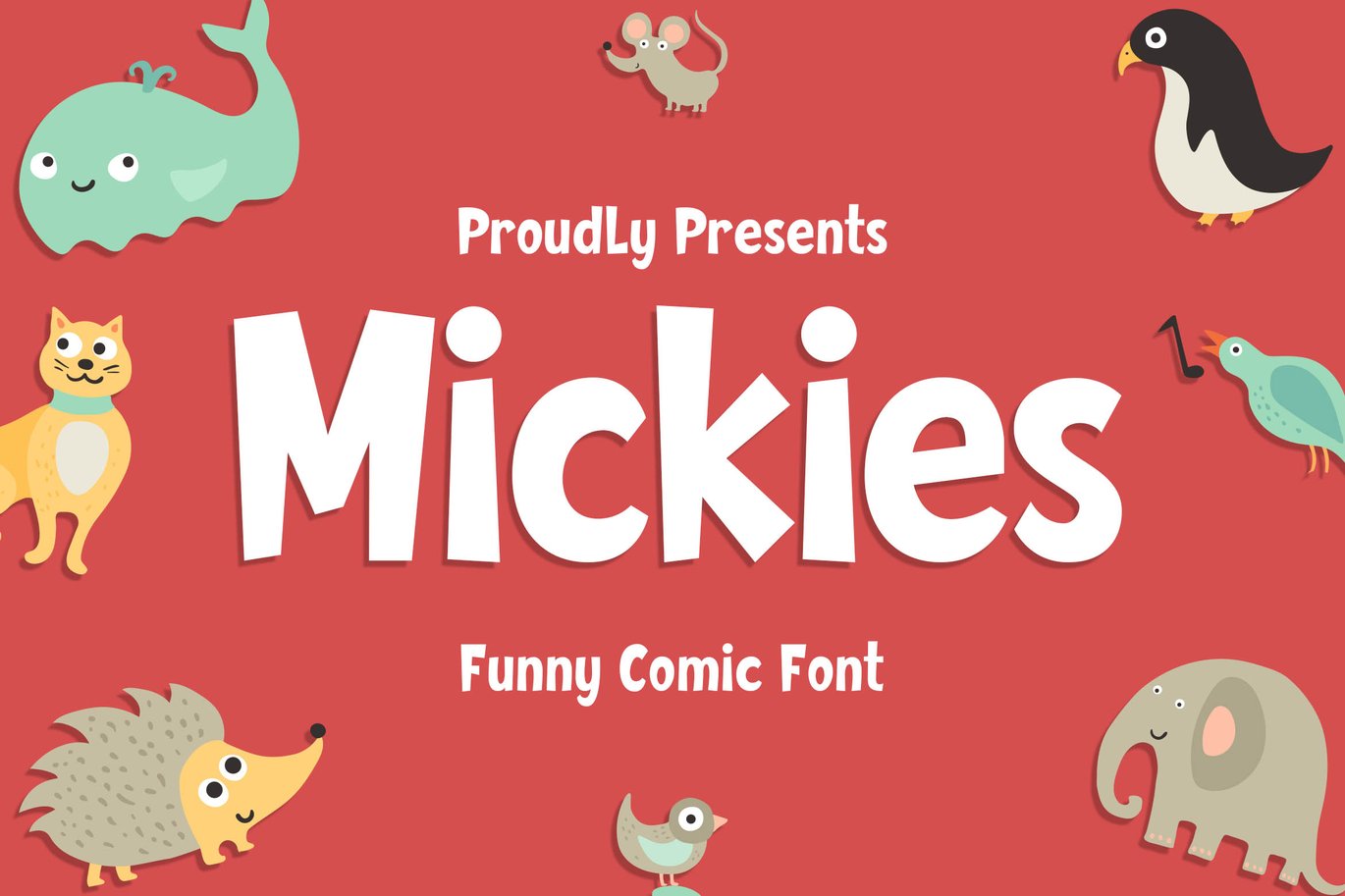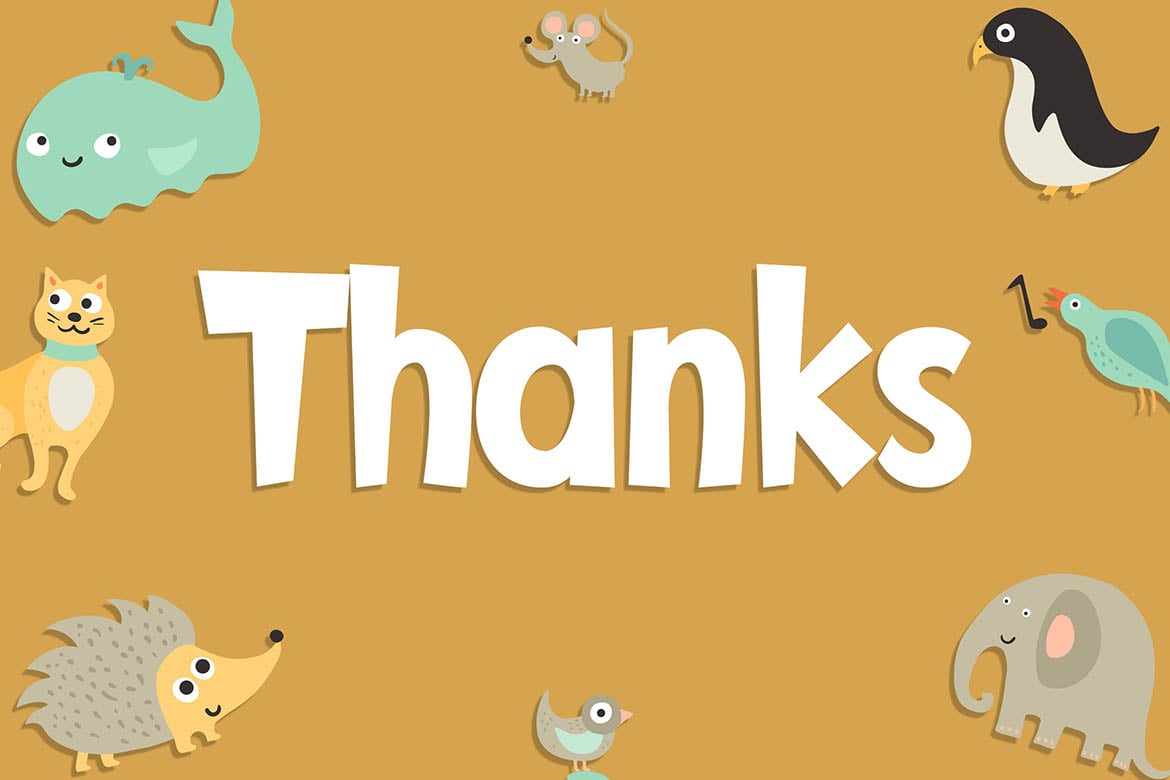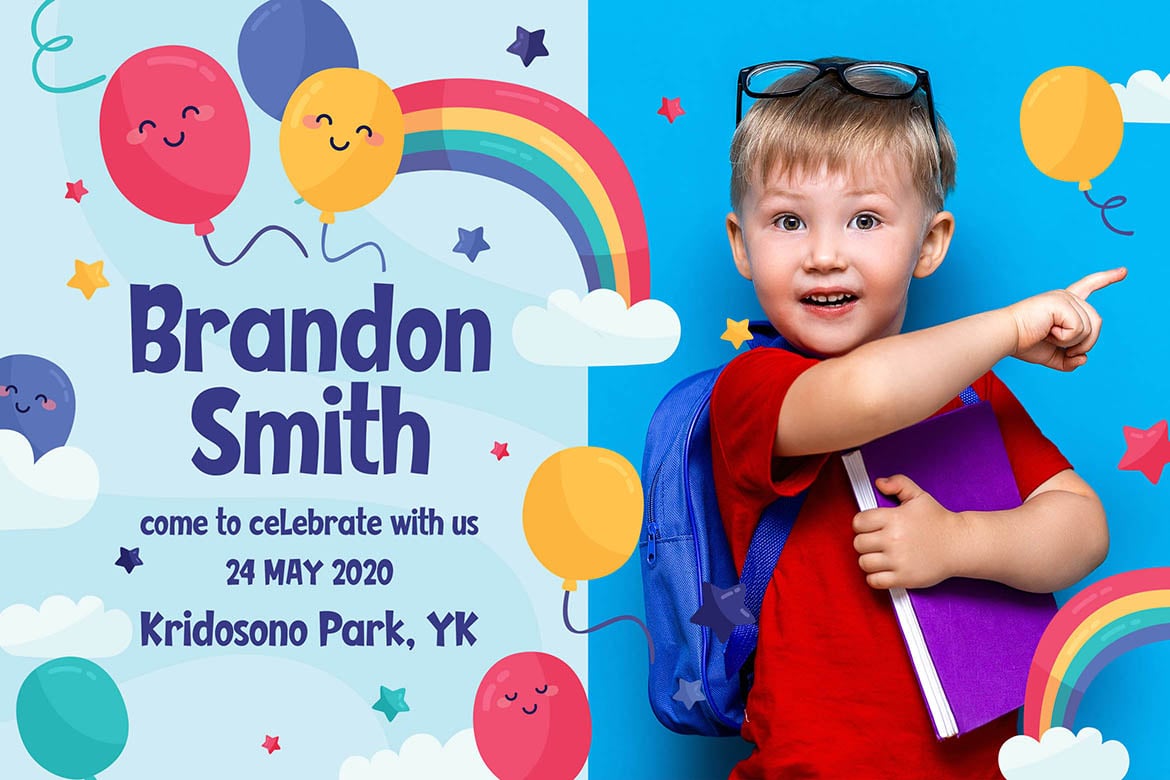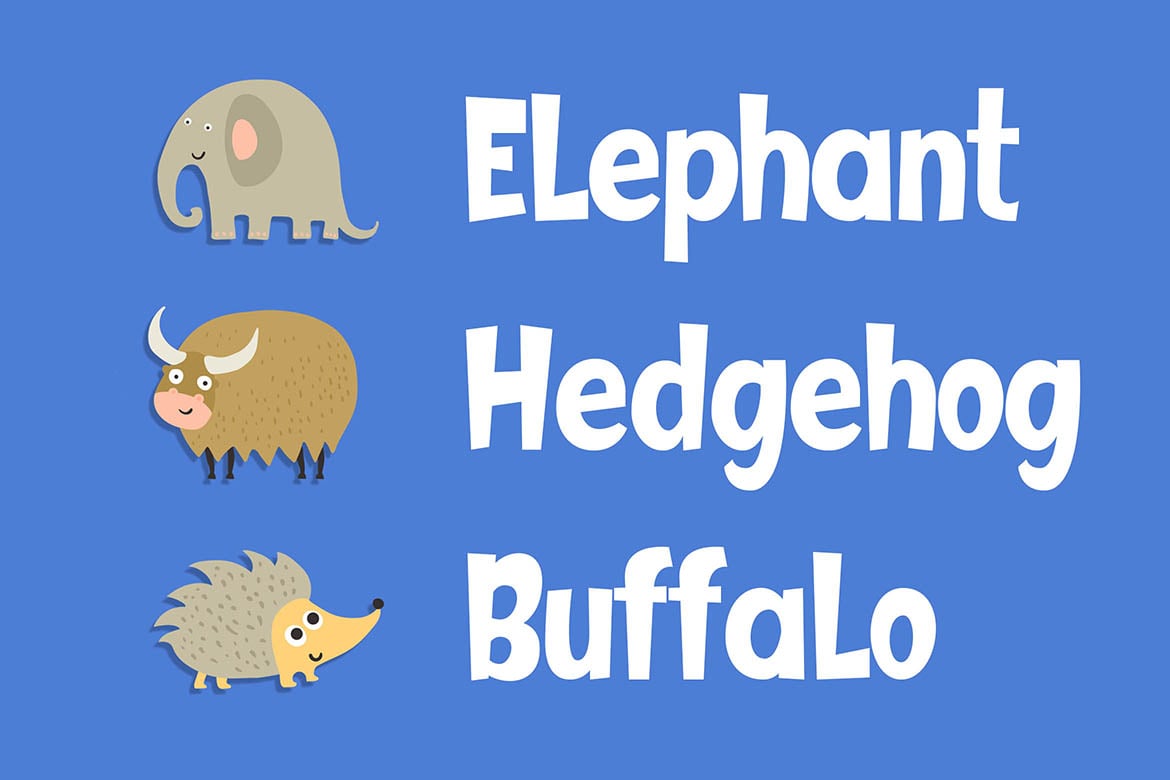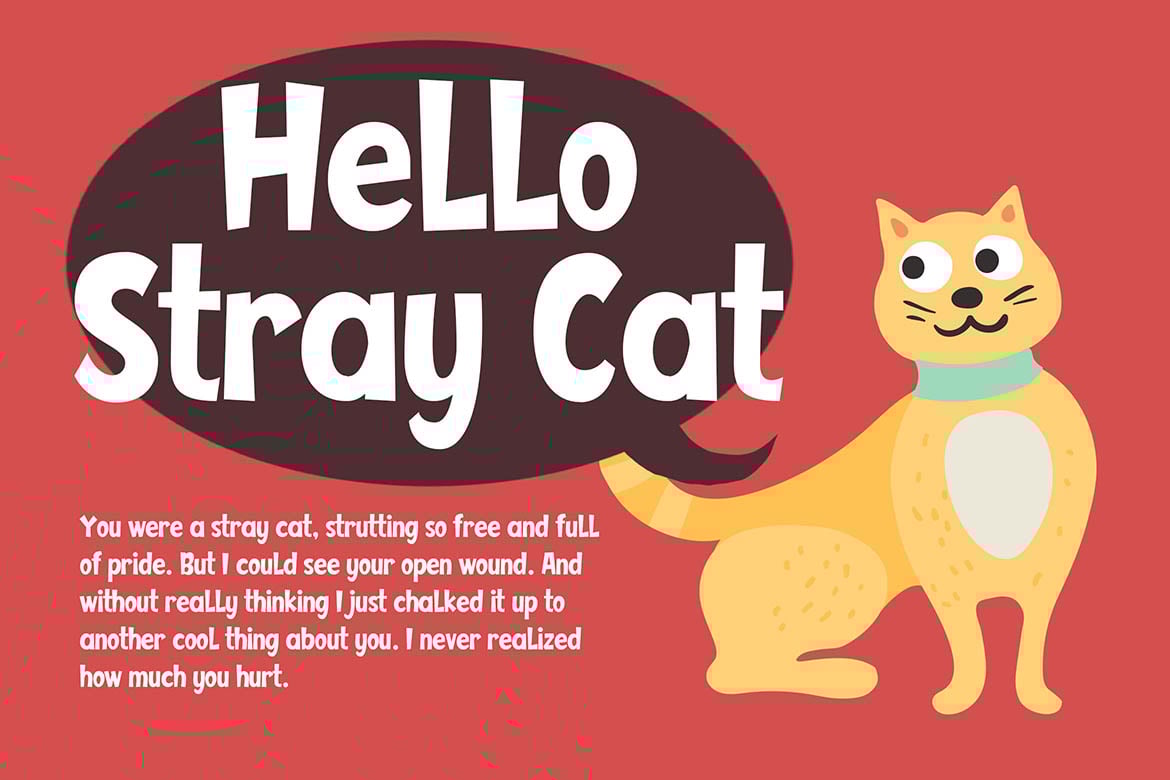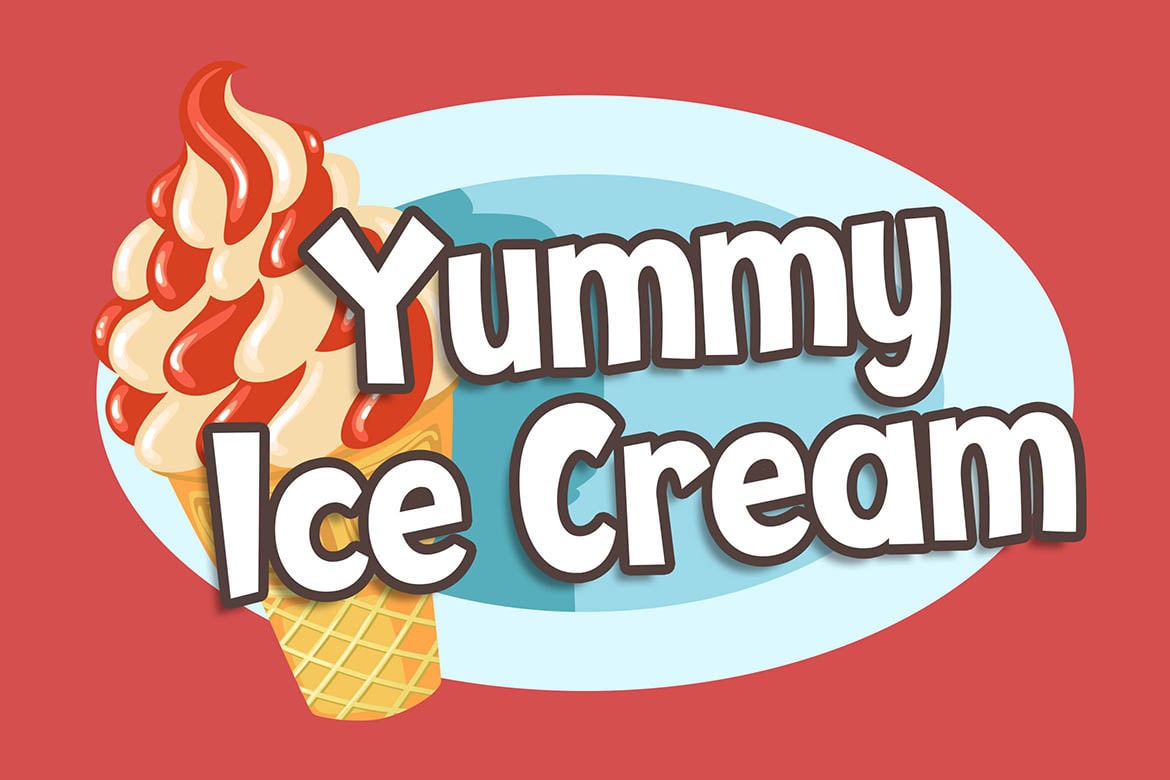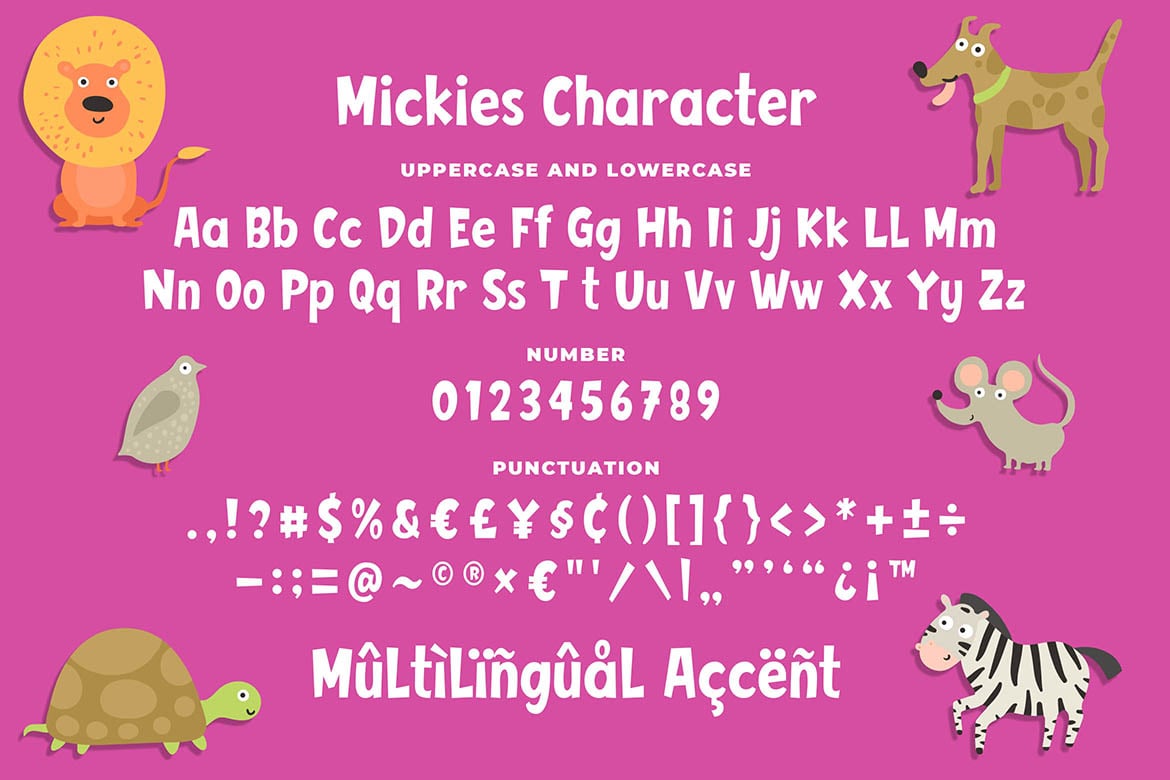
Mickies – Funny Comic Font
Introducing of our new product the name is Mickies Funny Comic Font. Mickies inspired from comic style very good for kids poster, flyer childrenbook, cartoon, comic etc
MULTILINGUAL ACCENT :
ŽžŠŒšŸÀÁÂÃÄÅÆÇÈÉÊËÌÍÎÏÐÑÒÓÔÕÖØÙÚÛÜÝßàáâãäåæçèéêëìíîïñòóôõöøùúûüýÿ